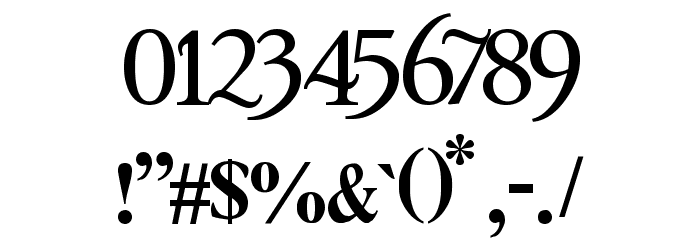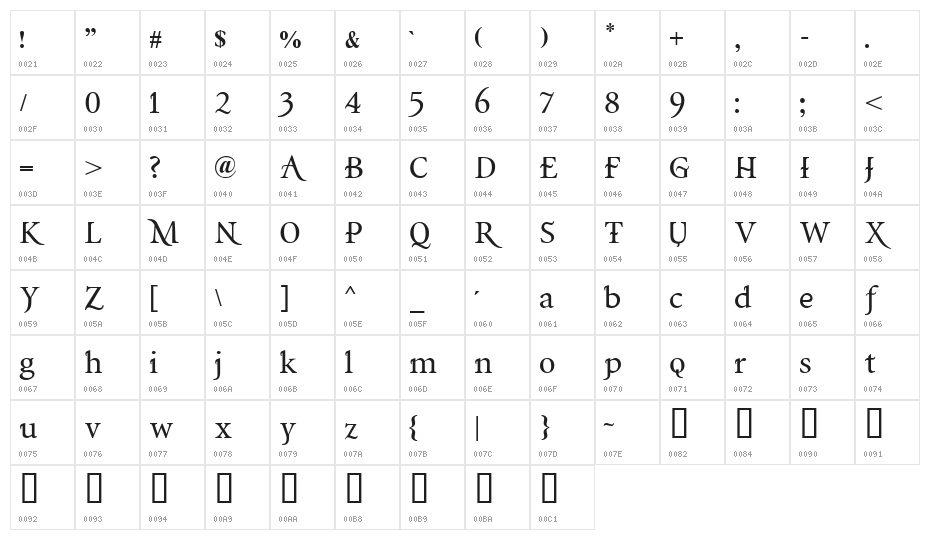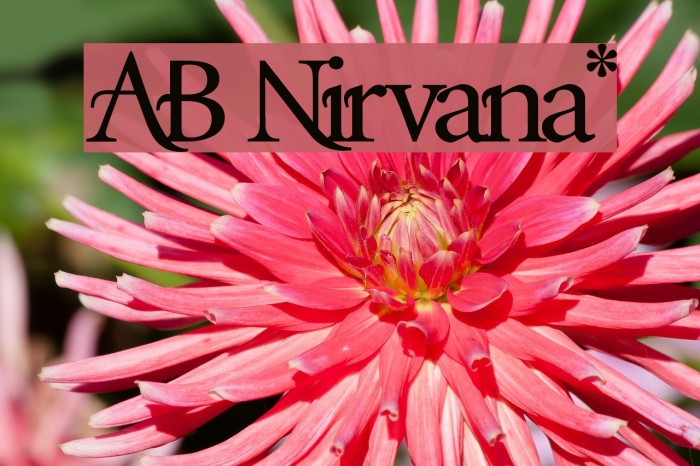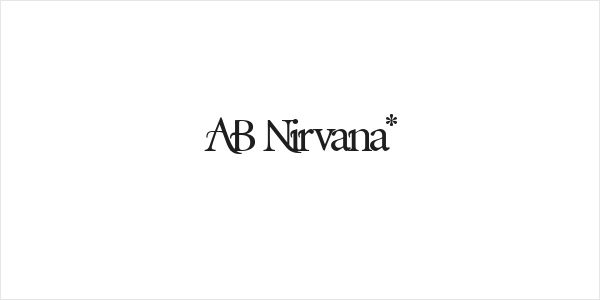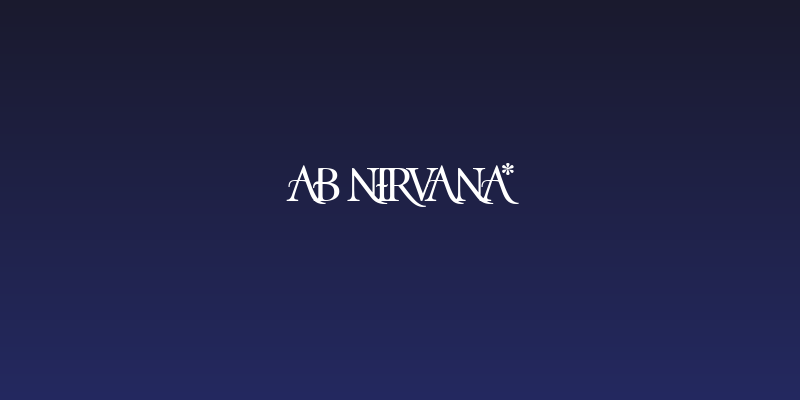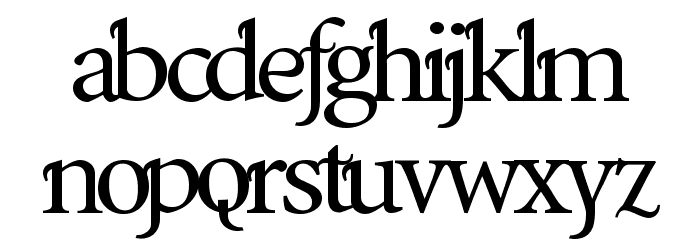
AB Nirvana* Font
AB Nirvana* Description
This font features a distinct and elegant style with a classic serif design. The uppercase letters are bold and commanding, with unique curves and flourishes that add a touch of sophistication. The lowercase letters maintain a consistent style, offering a harmonious balance between the uppercase and lowercase forms. The numerals are clear and legible, matching the overall aesthetic of the alphabet. Special characters are thoughtfully designed, ensuring they complement the rest of the character set. This font's intricate details and refined appearance make it suitable for projects that require a touch of elegance and tradition.
| Use Case | Headlines, Logos, Editorial design |
| Proposed Projects | Ideal for book covers, formal invitations, branding, and editorial design. |